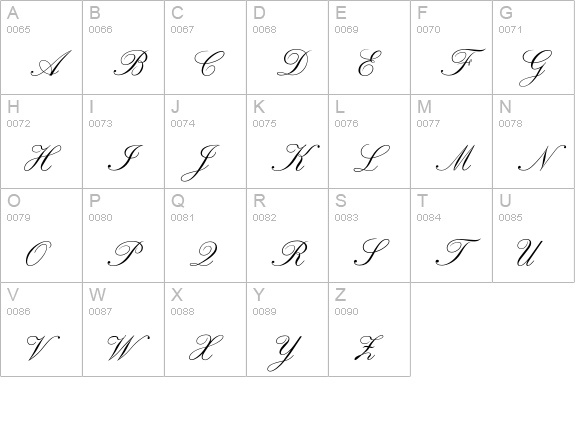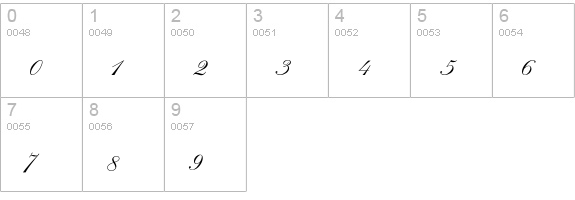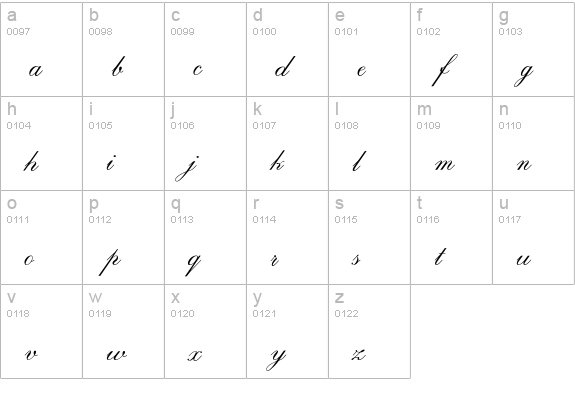
RegencyScript Font Details
RegencyScript font is a stunning cursive typeface that exudes elegance and sophistication. With its graceful curves and intricate details, this font captures the essence of the Regency era, making it perfect for projects that require a touch of refined beauty. Designed with a keen attention to detail, RegencyScript is meticulously crafted to ensure each letter flows seamlessly into the next, creating a harmonious and visually pleasing composition. Every stroke in this font is carefully balanced, resulting in a graceful and timeless design. Whether you're designing wedding invitations, elegant stationery, or a classic logo, RegencyScript will add a touch of regal charm to your work. Its versatility allows it to be used in a variety of contexts, from formal events to creative projects. What's even better is that this font is free! That's right, RegencyScript is freely available to download at FontsMarket.com. Now you can bring a touch of luxury to your designs without breaking the bank. Simply head over to FontsMarket.com and start exploring the world of RegencyScript font. Don't miss out on this opportunity to elevate your design projects with the timeless beauty of RegencyScript. Download it for free today and let your creativity soar.